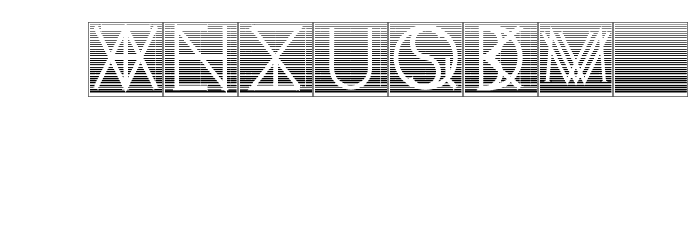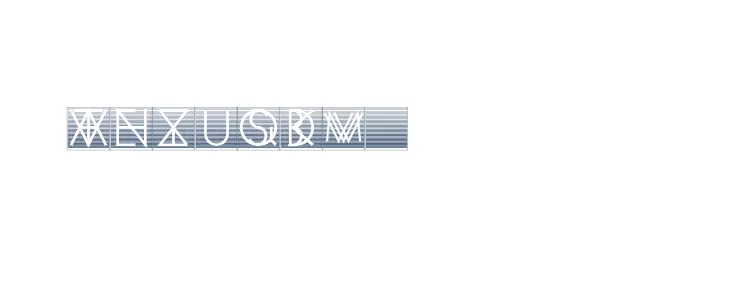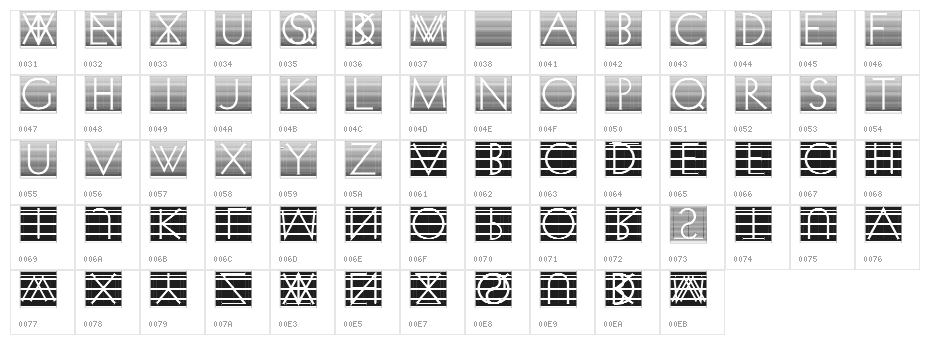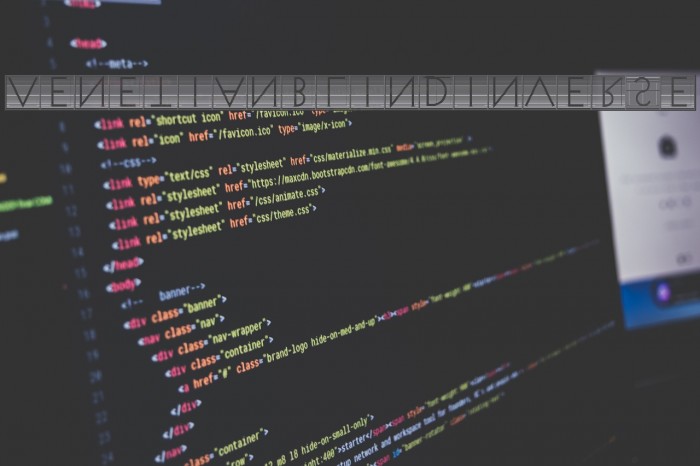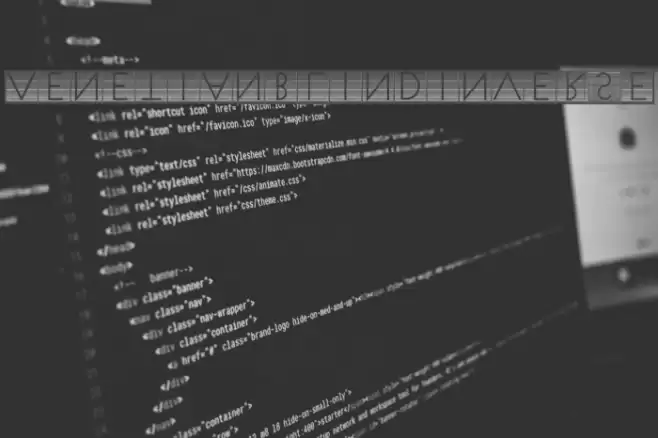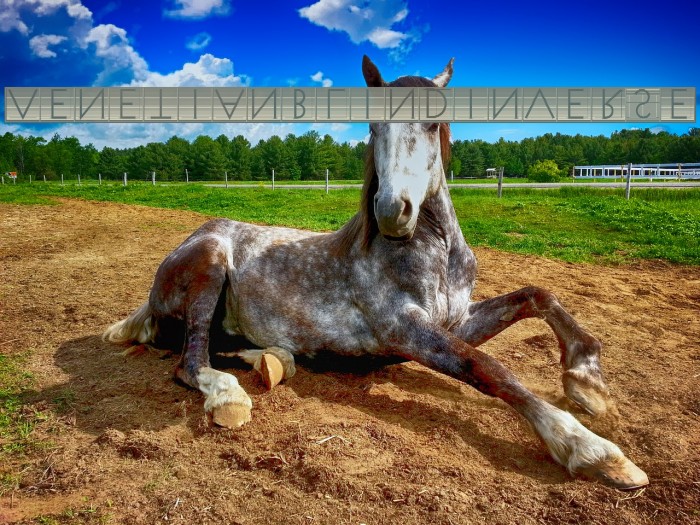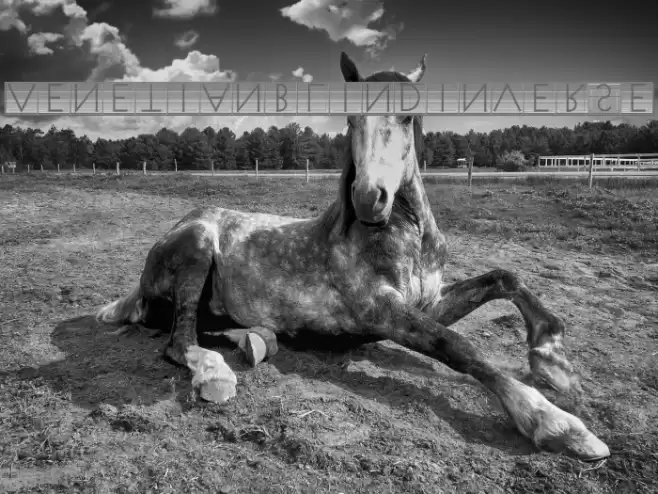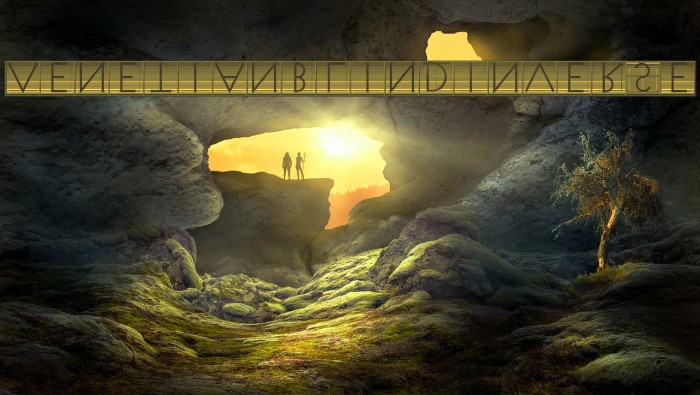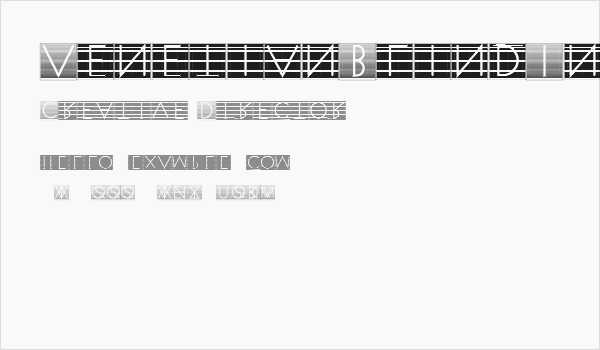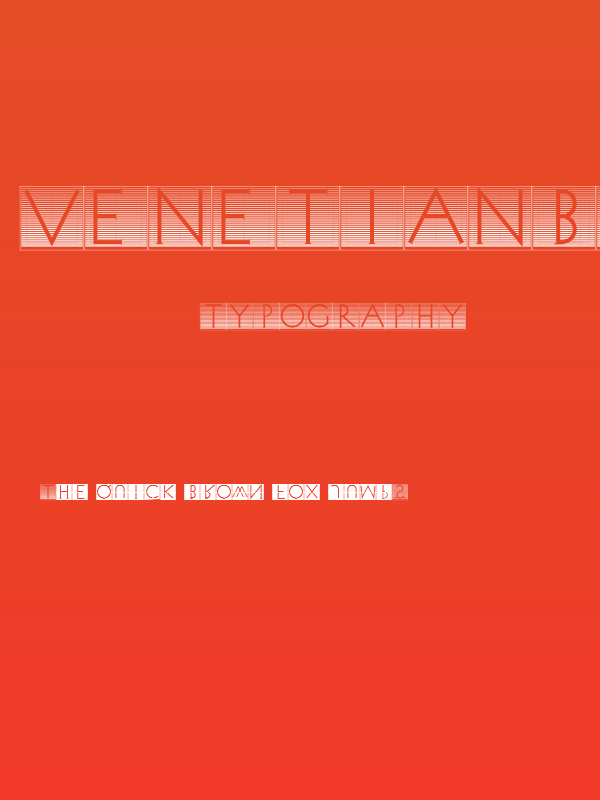
VenetianBlindInverse Font
VenetianBlindInverse Description
This font features a unique design where each character is enclosed within horizontal lines, creating a venetian blind effect. The letters are uppercase and lowercase, with a geometric and structured appearance. The lines give a sense of depth and texture, making it visually striking. The characters are evenly spaced, maintaining a consistent rhythm across the text. This style is both modern and decorative, suitable for creative and artistic projects.
| Proposed Projects | Ideal for artistic posters, modern branding, creative invitations, and unique logo designs. |